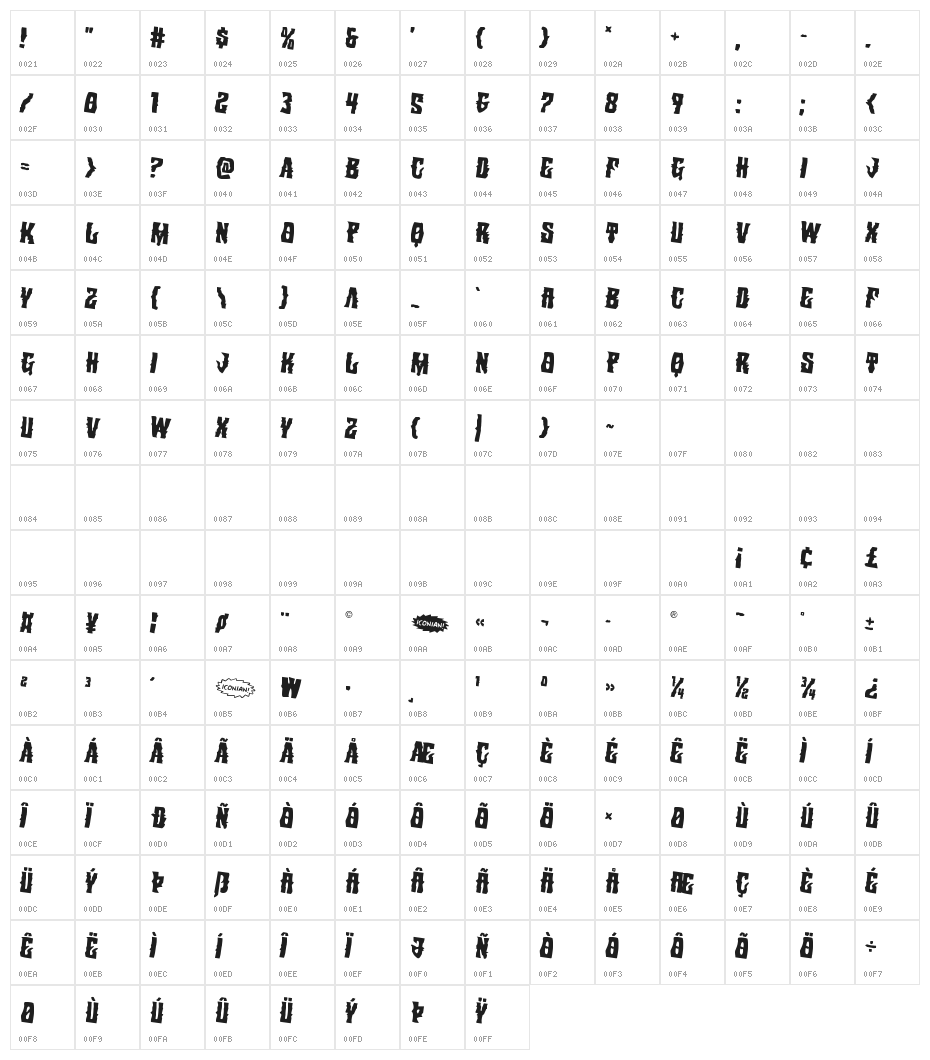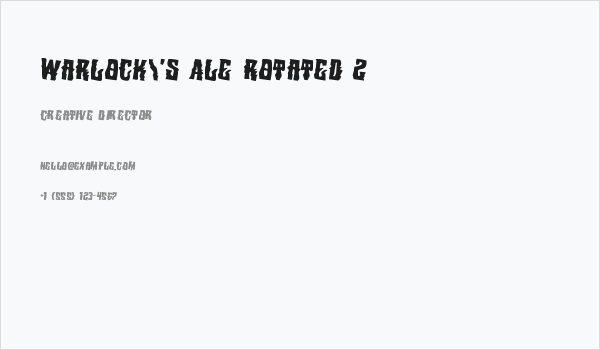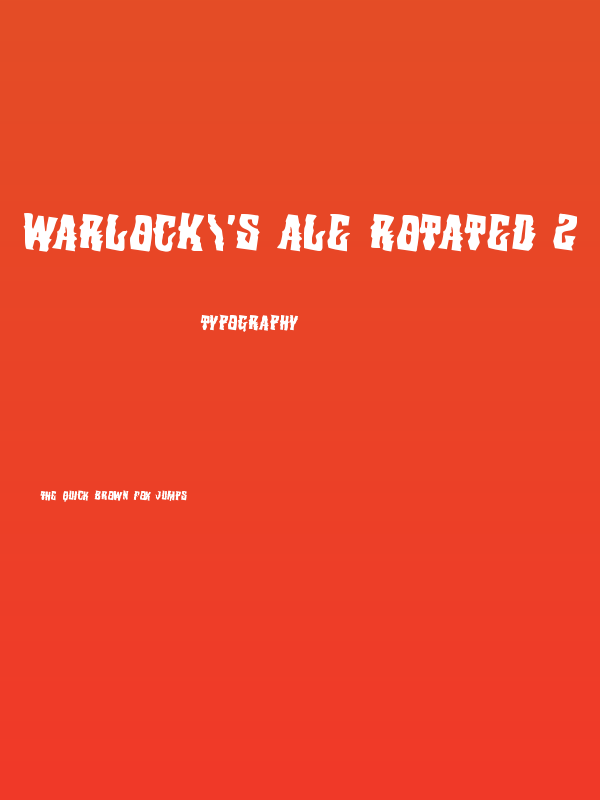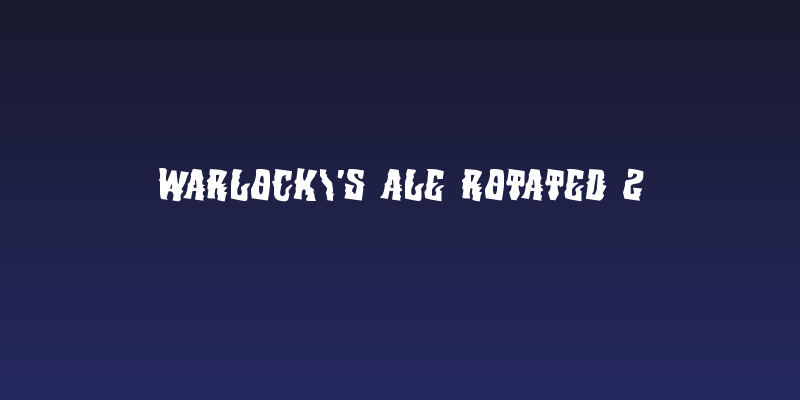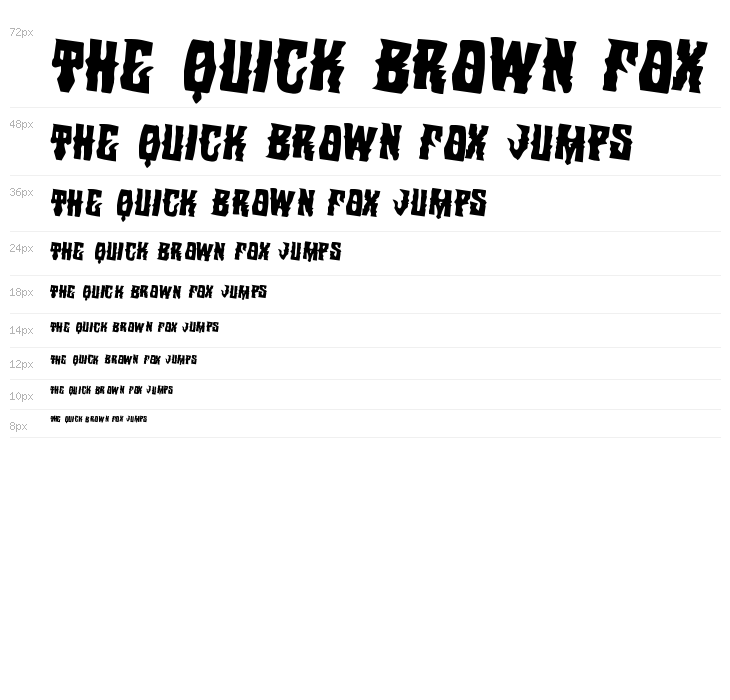
Warlock's Ale Rotated 2 Font
Warlock's Ale Rotated 2 Description
This font features a bold and dramatic style with sharp, jagged edges that give it a menacing and mysterious appearance. The characters are heavily stylized, with irregular shapes and a strong presence, making it ideal for creating a sense of intrigue and intensity. The uppercase and lowercase letters maintain a consistent design, while the numbers and special characters follow the same bold and edgy theme. This font is perfect for projects that require a striking and unconventional look.
| Proposed Projects | Ideal for horror-themed posters, Halloween invitations, video game titles, and edgy branding. |